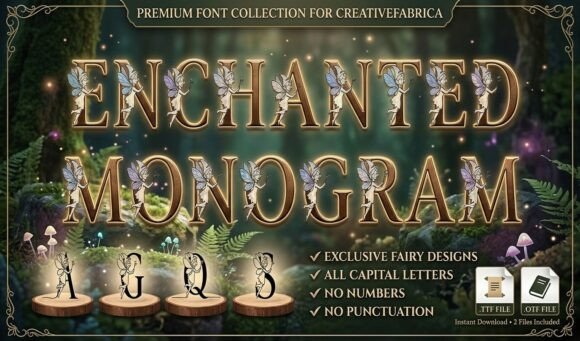
Welcome to Enchanted Fairy Monogram! ✨
Are you looking for a font that adds a touch of magic and whimsy to your designs? Look no further than Enchanted Fairy Monogram! This charming decorative font features elegant serif capital letters, each beautifully intertwined with a delicate, hand-drawn line-art fairy. The result is a truly enchanting font that’s perfect for designers and crafters who want to add a little bit of wonder to their work.
What Makes Enchanted Fairy Monogram So Special?
Enchanted Fairy Monogram is a highly detailed and decorative font that’s perfect for statement pieces, drop caps, and personalized crafts. The font features intricate, hand-drawn designs that are sure to delight both kids and adults alike. The elegant serif capital letters are intertwined with delicate fairy illustrations, creating a truly unique and eye-catching effect.
Because of its highly decorative nature, Enchanted Fairy Monogram is perfect for a wide range of design projects. Here are just a few ideas to get you started:
- Nursery Wall Art: Add a touch of magic to nursery wall art with Enchanted Fairy Monogram. The font looks beautiful on wall decals, prints, and other decorative elements.
- Children’s Clothing: Create adorable children’s clothing with Enchanted Fairy Monogram. The font is perfect for onesies, t-shirts, and other kids’ apparel.
- Magical Birthday Invitations: Make your birthday invitations truly special with Enchanted Fairy Monogram. The font adds a touch of whimsy and wonder to any invitation.
- Personalized Tumblers: Create beautiful personalized tumblers with Enchanted Fairy Monogram. The font looks stunning on custom water bottles, coffee mugs, and other drinkware.
- Tote Bags: Add a touch of magic to tote bags with Enchanted Fairy Monogram. The font is perfect for custom tote bags, purses, and other accessories.
- Fairytale-Themed Branding: Create a truly enchanting brand with Enchanted Fairy Monogram. The font is perfect for fairytale-themed businesses, such as children’s party planners, bakeries, and more.
Why Choose Enchanted Fairy Monogram?
There are many decorative fonts on the market, but Enchanted Fairy Monogram stands out for several reasons:
- Unique Design: Enchanted Fairy Monogram features a truly unique design that’s unlike any other font on the market. The intricate, hand-drawn fairy illustrations add a touch of magic to any design.
- Highly Versatile: Enchanted Fairy Monogram is highly versatile and can be used for a wide range of design projects. Whether you’re creating nursery wall art or fairytale-themed branding, this font is sure to impress.
- Elegant and Whimsical: Enchanted Fairy Monogram strikes the perfect balance between elegance and whimsy. The font is sophisticated enough for adult designs, yet playful enough for kids’ projects.
Tips for Using Enchanted Fairy Monogram
Here are a few tips for getting the most out of Enchanted Fairy Monogram:
- Use it Sparingly: Because of its highly decorative nature, it’s best to use Enchanted Fairy Monogram sparingly. Use it for statement pieces, drop caps, or other design elements that need a touch of magic.
- Pair it with Simple Fonts: Enchanted Fairy Monogram looks best when paired with simple, easy-to-read fonts. Try pairing it with a clean sans-serif font for a beautiful contrast.
- Experiment with Colors: Enchanted Fairy Monogram looks beautiful in a variety of colors. Experiment with different color schemes to find the perfect one for your design.
| Font Name | Enchanted Fairy Monogram Font |
| Author | greenvill |
Enchanted Fairy Monogram is a truly magical font that’s perfect for designers and crafters who want to add a touch of whimsy to their work. With its elegant serif capital letters and delicate fairy illustrations, this font is sure to delight both kids and adults alike. Whether you’re creating nursery wall art, children’s clothing, or fairytale-themed branding, Enchanted Fairy Monogram is the perfect choice. So why wait? Download Enchanted Fairy Monogram today and bring a touch of magic to your designs! ✨